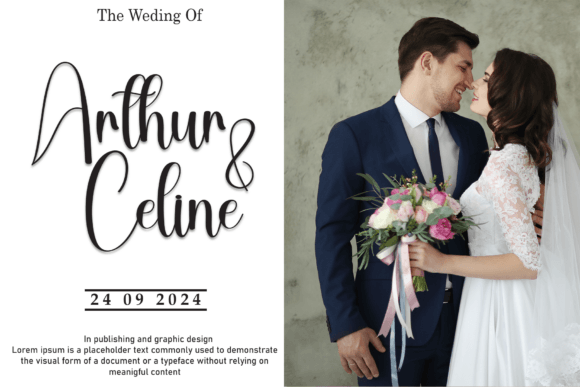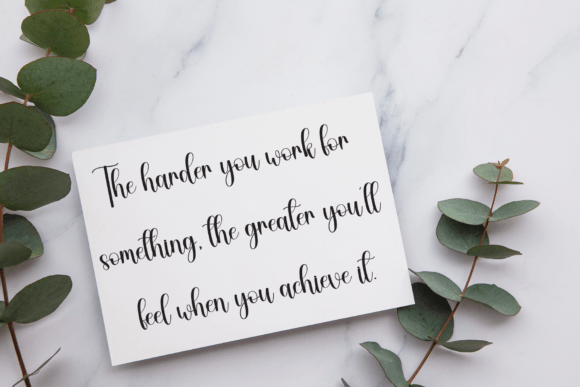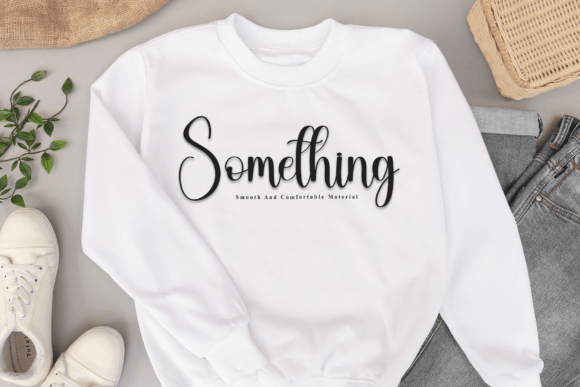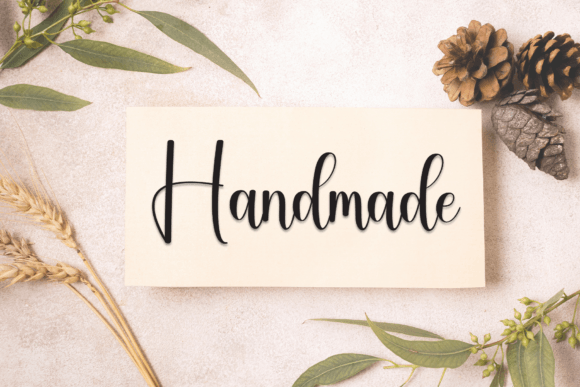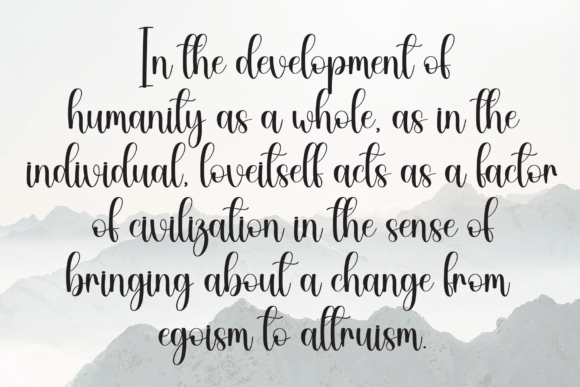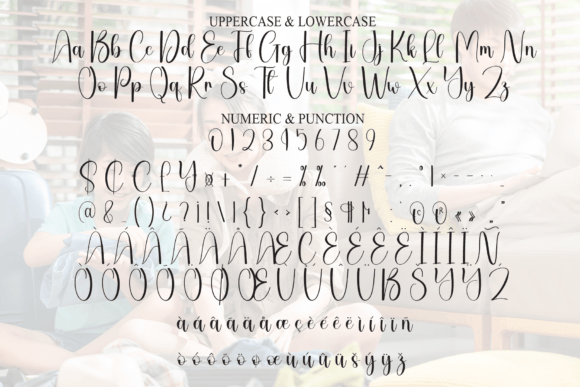
Introduction to Hello Staycation Font
Have you ever stumbled upon a font that perfectly captures the essence of your creative vision? For many designers, that moment is a game-changer. It’s the moment when everything falls into place, and your design project comes alive. For me, that moment was when I discovered the Hello Staycation Font.
This stunning handwritten script font exudes elegance and charm, making it a valuable addition to any designer’s toolkit. Its fluid strokes and natural flow create a captivating, sophisticated look that’s perfect for adding a personal touch to invitations, branding, or social media. With its high-quality design and transparent background, the Hello Staycation Font is a top design resource that’s sure to elevate your creative project.
Key Features of Hello Staycation Font
- High-quality, unique design for creative projects and design resources, perfect for adding a personal touch to your work.
- Designed to be highly legible at various font sizes, from 12 to 48 points, making it ideal for use in body text and headings.
Honest Review: Hello Staycation Font
I recently stumbled upon the Hello Staycation Font and was excited to give it a try for my next creative project. As a designer, I’m always on the lookout for high-quality fonts that can elevate my designs and make them stand out. In this review, I’ll share my honest thoughts on what works well and what could be improved.
- ✨ The font has a unique, modern feel that’s perfect for creative projects.
- ✨ The font is available in various weights and styles, making it versatile for different design needs.
Overall, I think the Hello Staycation Font is a solid addition to any design resource library. While it has some limitations, its unique design and free download make it a great option for designers working on creative projects.
The Hello Staycation Font is perfect for creating eye-catching designs for social media, blog posts, and marketing materials. You can also use it to create custom graphics, logos, and branding elements.
To get the most out of the Hello Staycation Font, experiment with different font sizes, colors, and combinations. You can also use the font in conjunction with other design elements, such as graphics and images, to create a cohesive and visually appealing design.